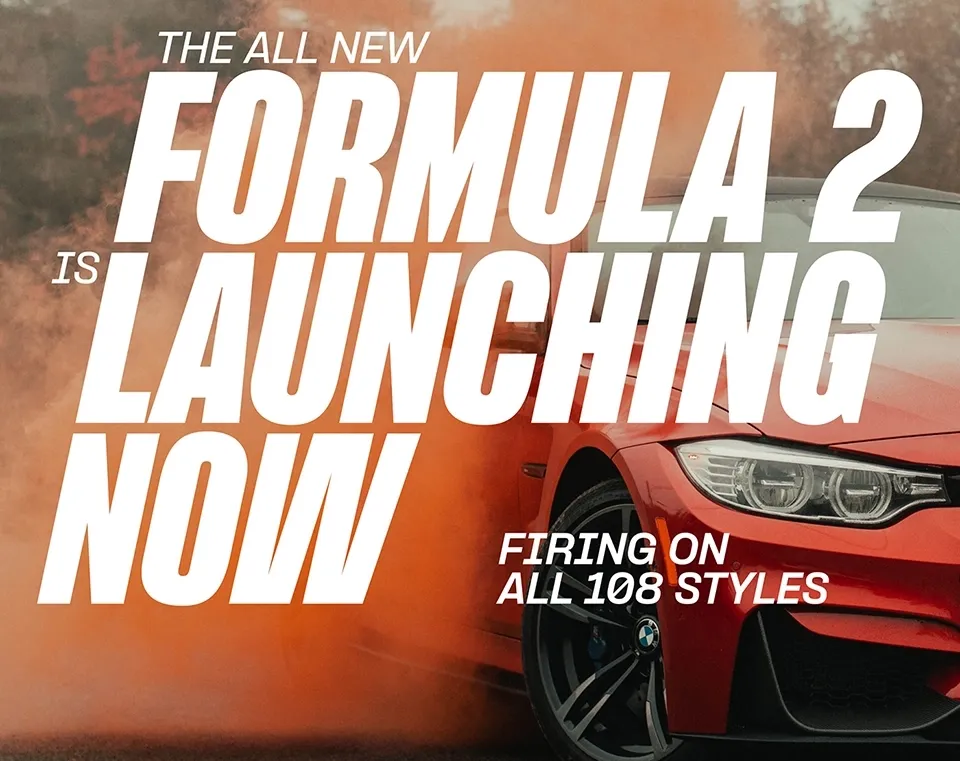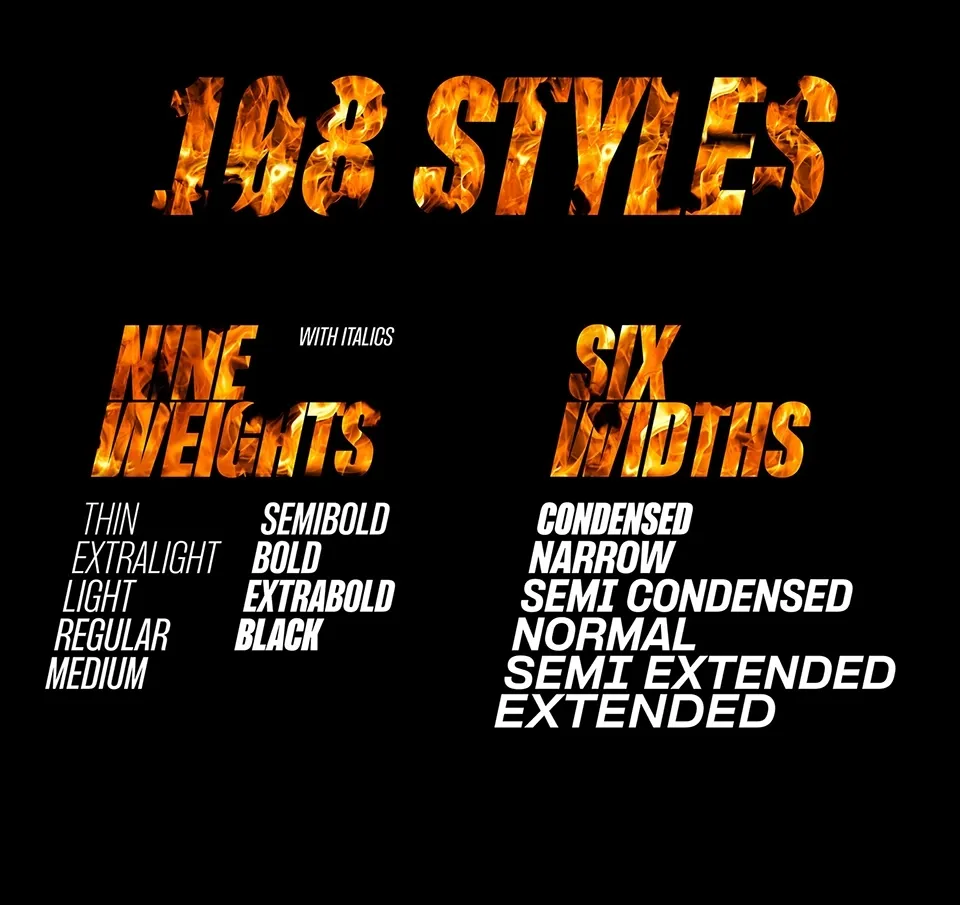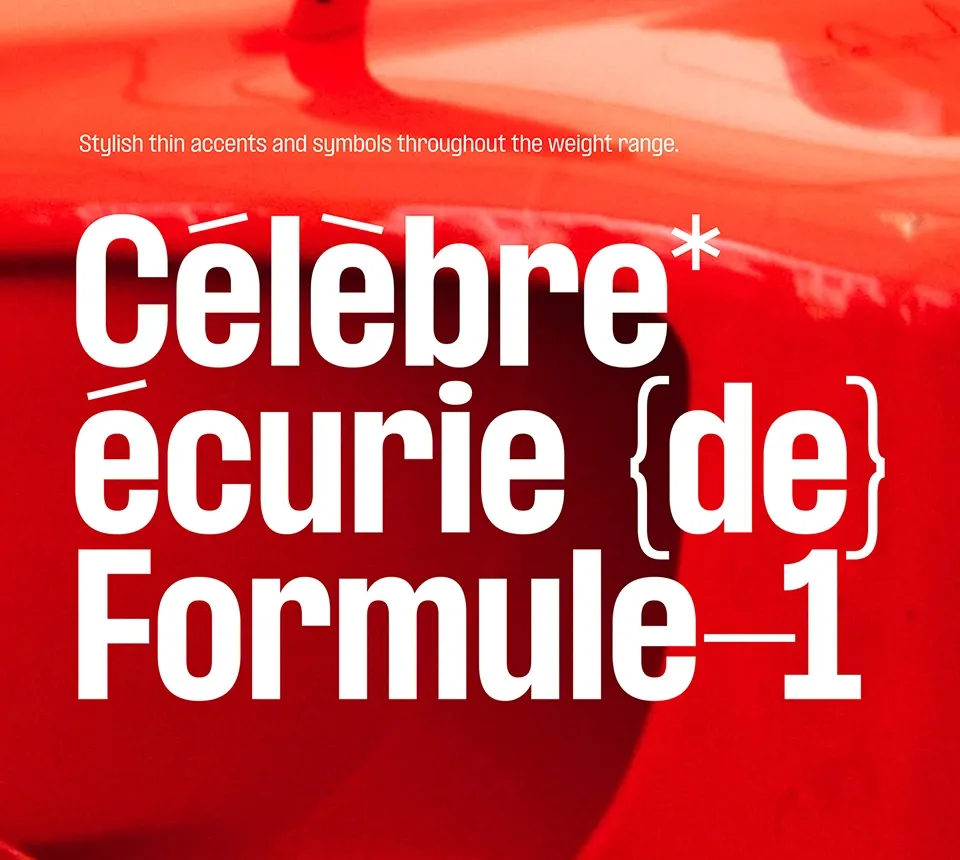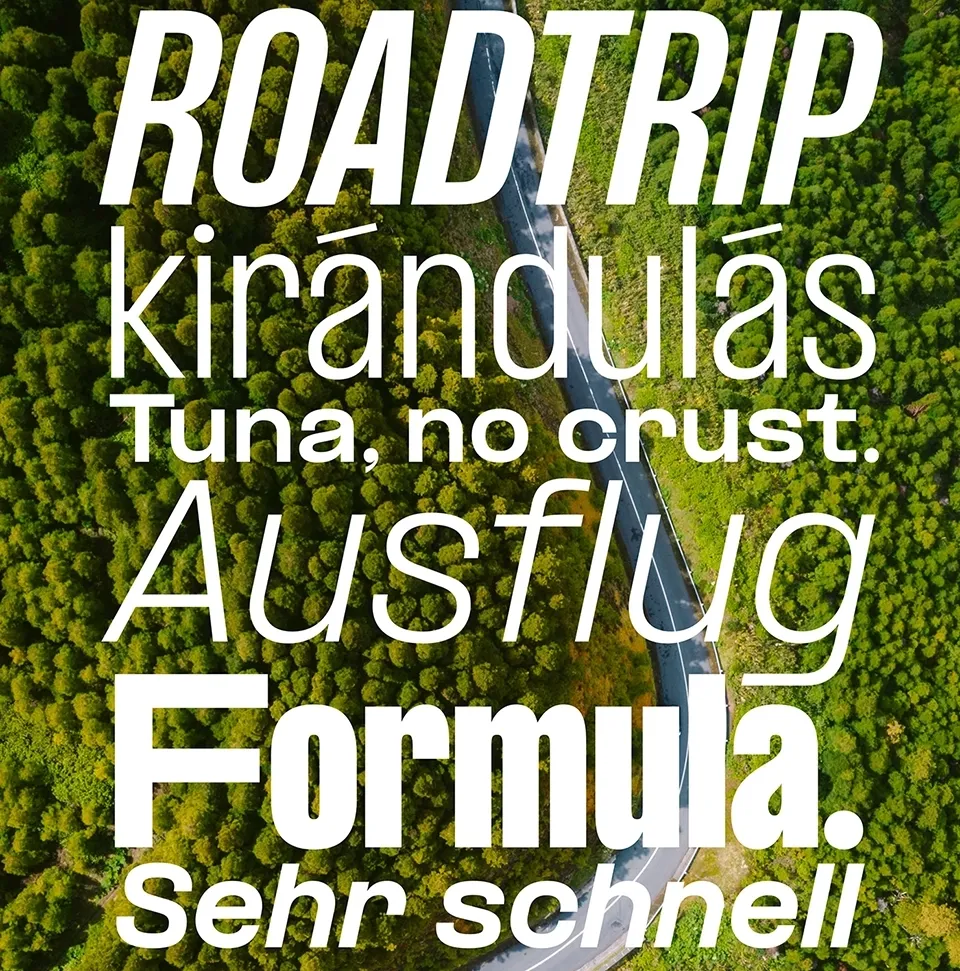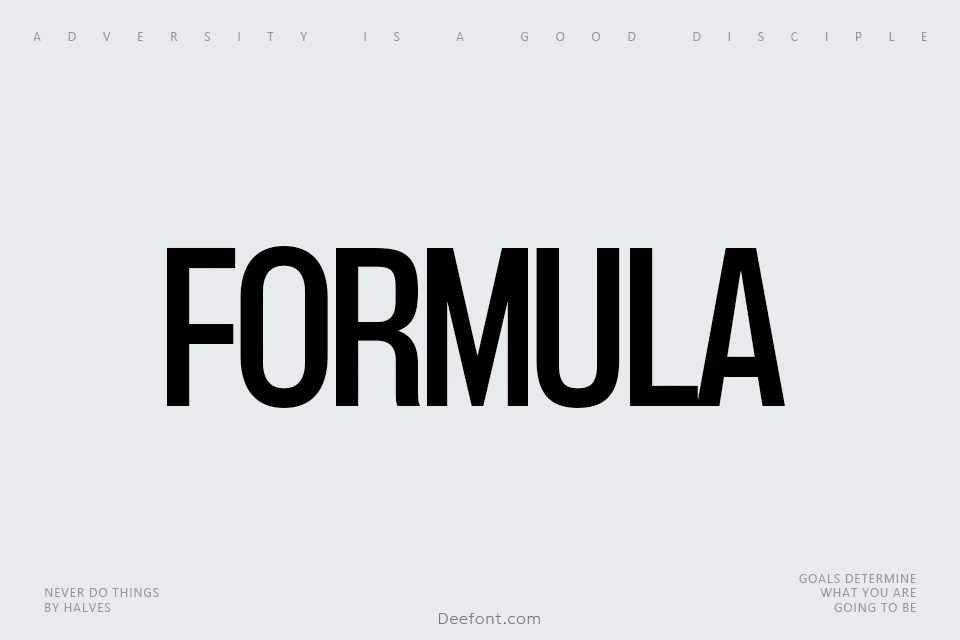
Formula 2 Font Family
Formula 2 Font Family is an experimental modern sans serif typeface designed by Pangram Pangram. It features open geometric shapes, a futuristic style, and wide letters, making it perfect for modern branding, logos, website design, and creative projects that require a bold, racy look with the versatility of a grotesque typeface. With 108 styles ranging from Condensed to Extended, it provides extensive flexibility and visual impact for any design.